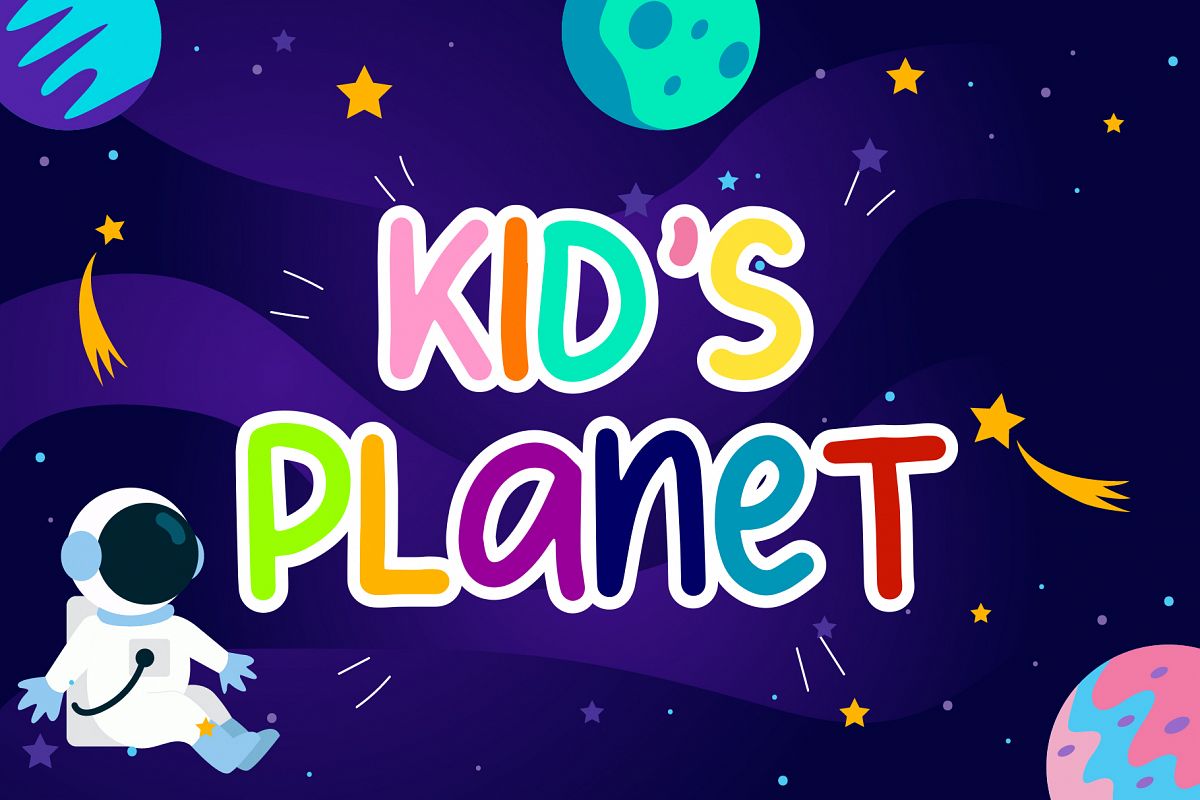
KID'S PLANET is an exciting kid font can make your design project look cute and modern.
KID'S PLANET is perfect for branding projects, logo, tshirt designs, social media posts, advertisements, product packaging, product designs, label, watermark, invitation, stationery and any projects.